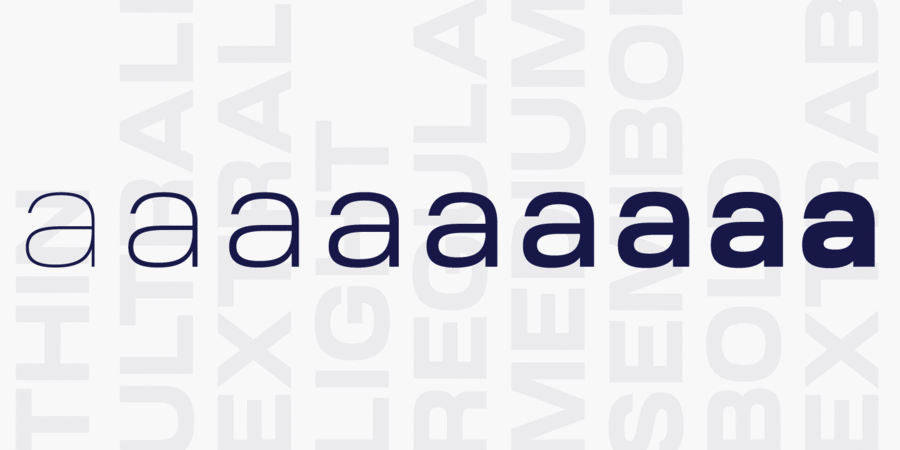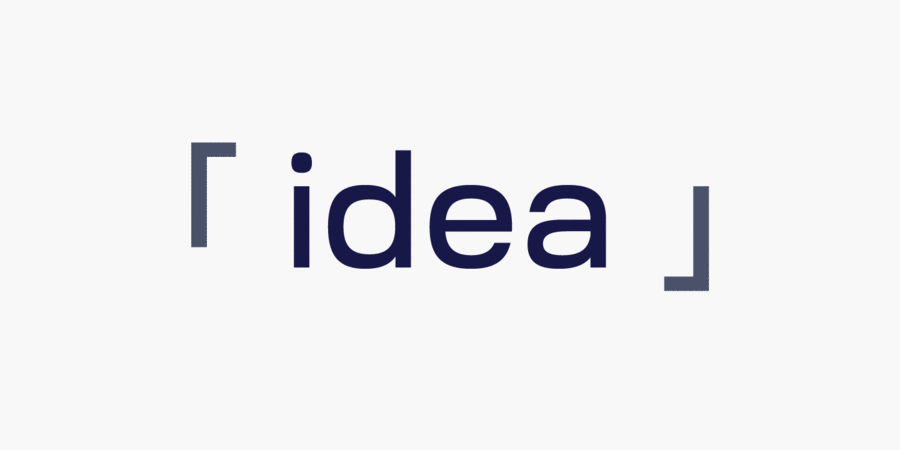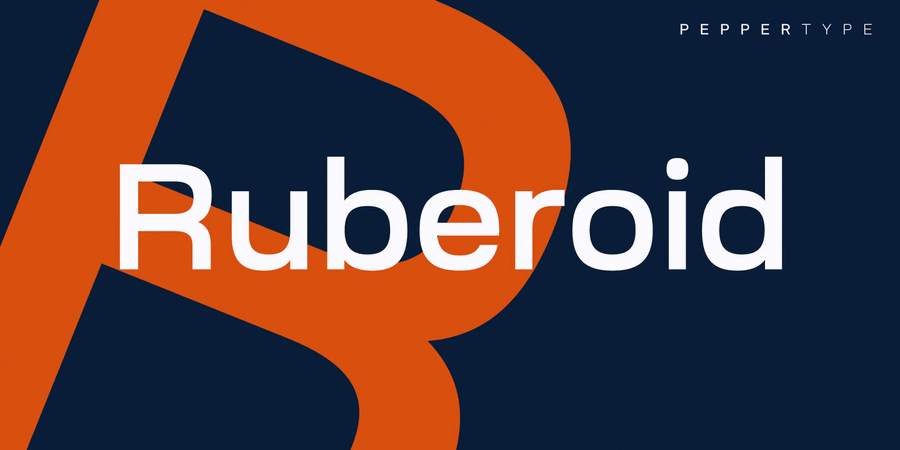
About Ruberoid is a squarish geometric sans-serif family reminiscent of Italian designs of 1950s and 1960s, but featuring considerably rounder shapes to give it a more contemporary feel. The typeface comes in 9 weights with companion oblique styles and contains support for Latin, Greek, and Cyrillic scripts. The typeface was designed by Oleh Lishchuk in 2020.